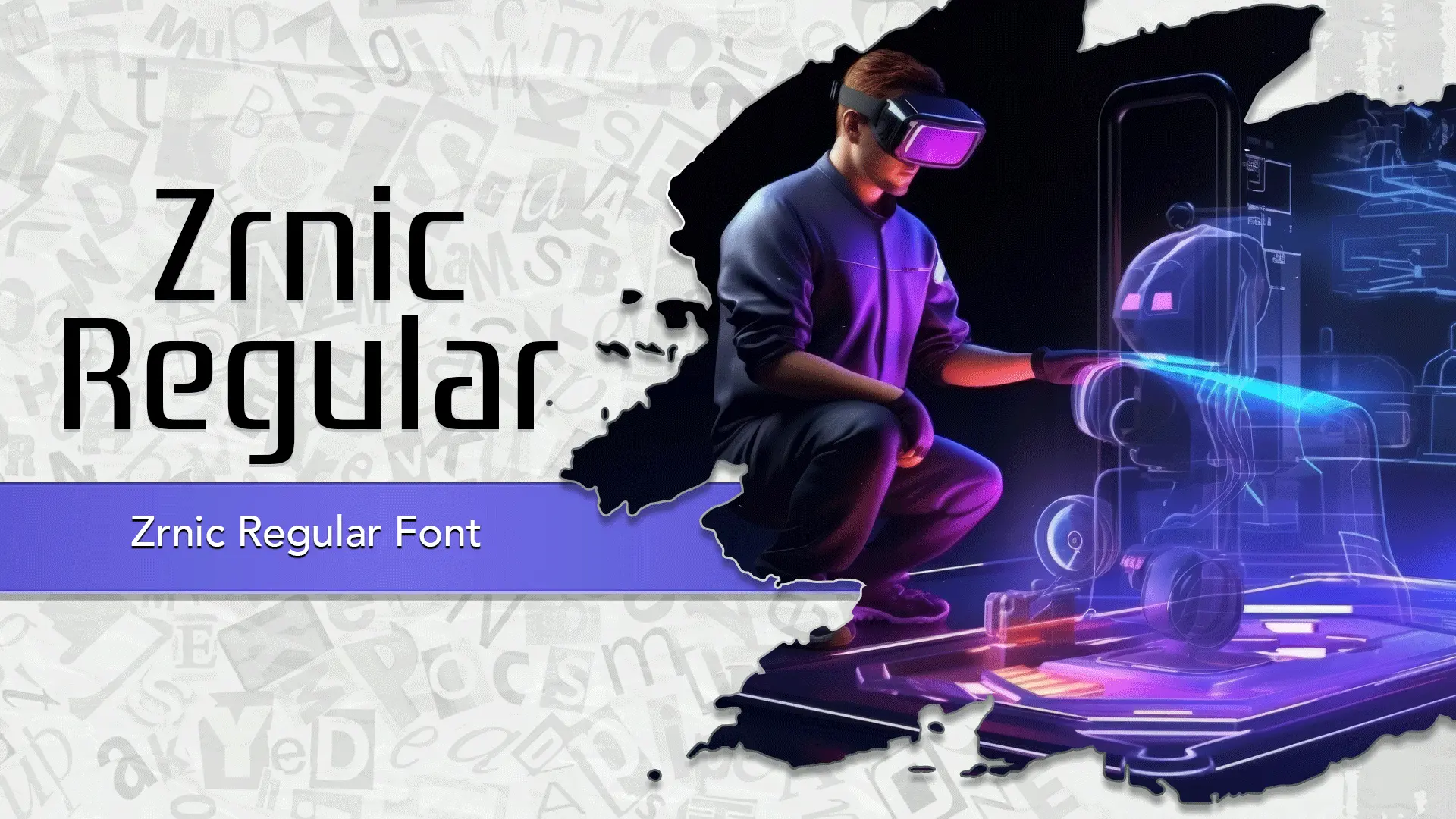
The Zrnic font family may be ideal for you if you enjoy working on an artistic design project. The lively, expressive look of this typeface, which was created by Typodermic Fonts, makes it ideal for Technology and Science Fiction Branding(Tech Company Logos, Sci-Fi Games and Movies, Futuristic Product Packaging), Industrial and Engineering Design(Manufacturing and Robotics, Technical Documentation Headings), Sports Apparel/Branding for athletic wear or team logos that want to convey dynamism, speed, and a high-performance feel and Campaigns for tech products and other light-hearted visual projects.
Regular are the one primary font styles of the Zrnic font family. You may build dynamic, visually appealing text layouts with the distinct flair that each style offers. With crisp, readable lines and a relaxed tone.